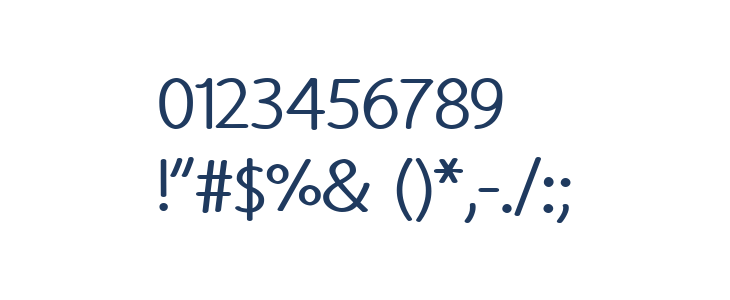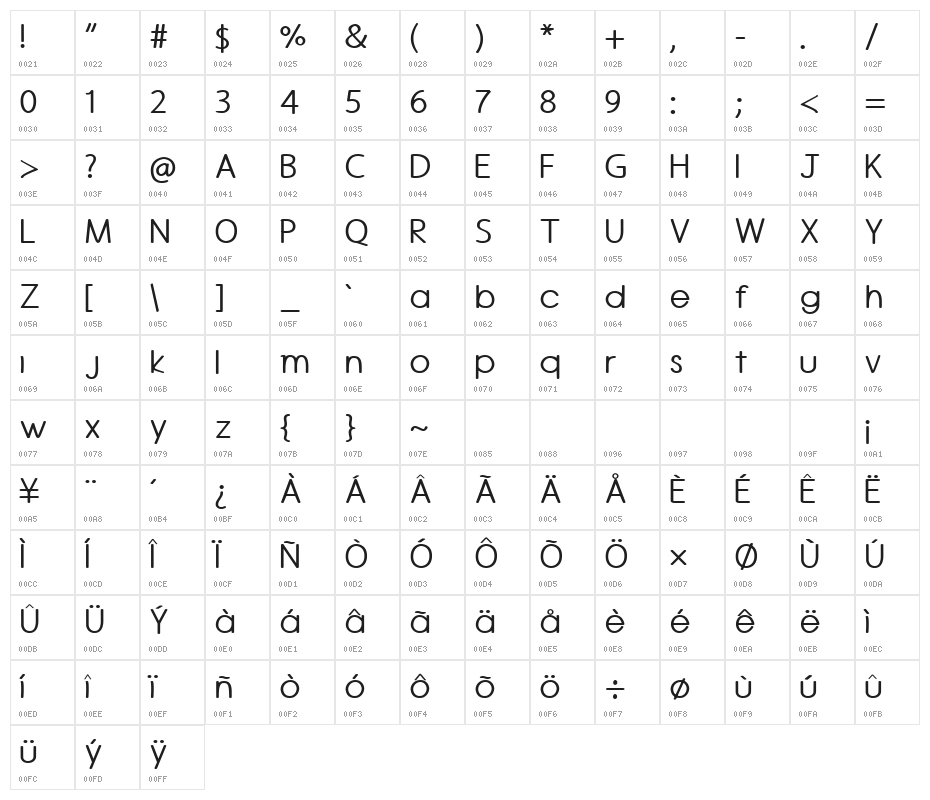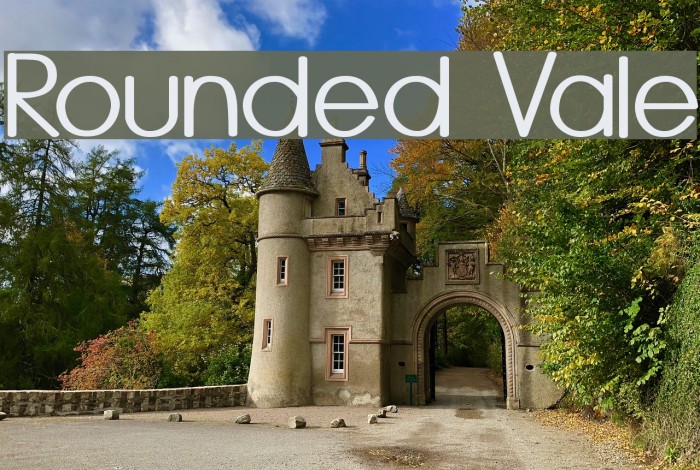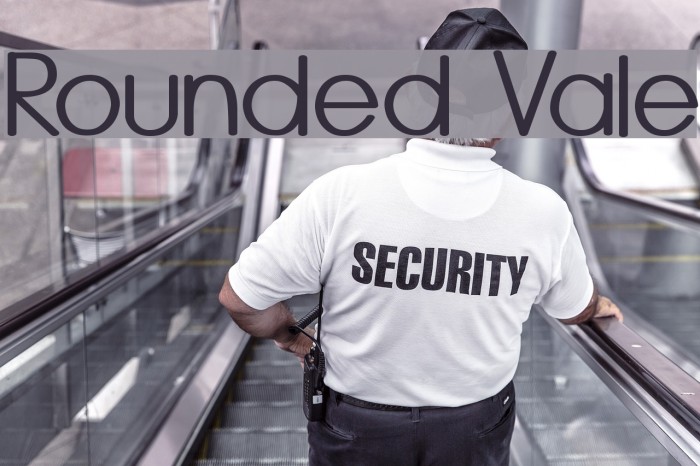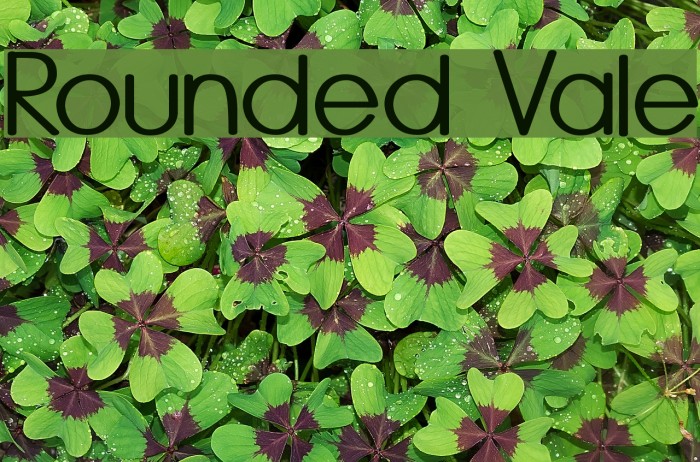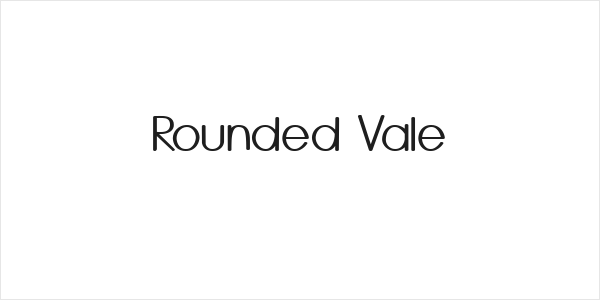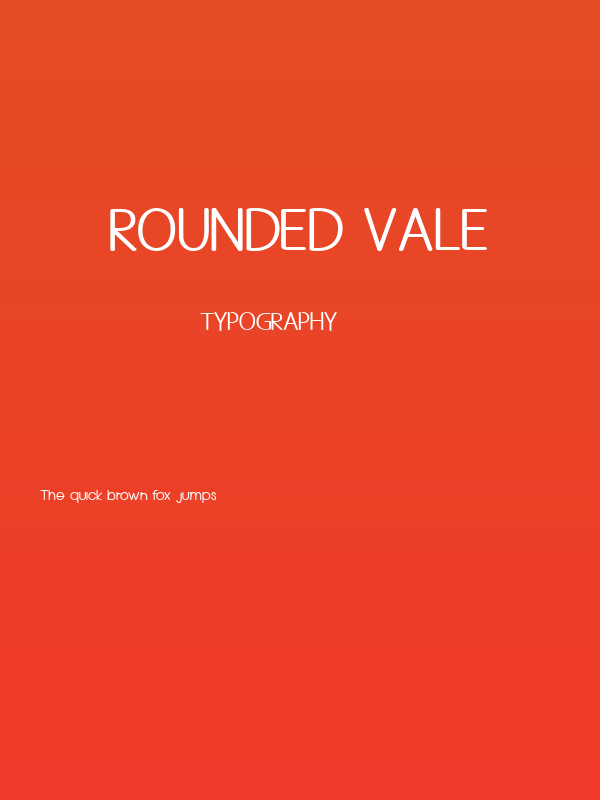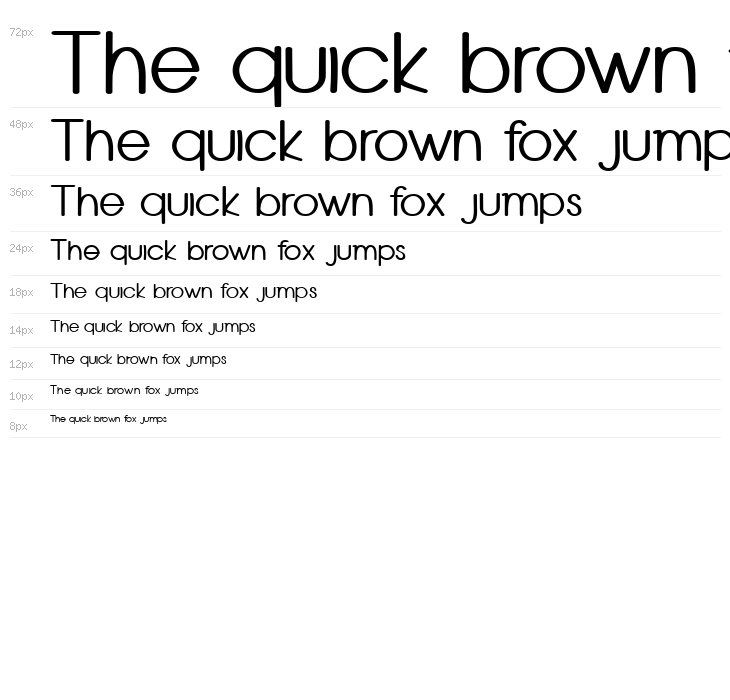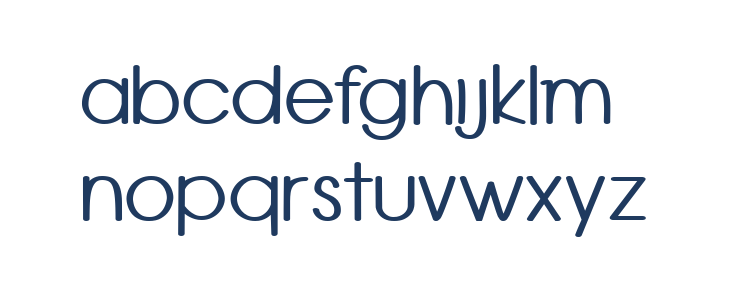
Rounded Vale Font
Rounded Vale Description
This font features a clean and modern aesthetic with rounded edges that give it a friendly and approachable feel. The characters are evenly spaced, contributing to its readability and versatility. The uppercase letters are slightly taller than the lowercase, maintaining a consistent line weight throughout. The numerals are clear and distinct, making them easy to read. Special characters are well-designed, fitting seamlessly with the overall style. This font's simplicity and elegance make it suitable for a wide range of applications, from digital interfaces to print media.
| Proposed Projects | Ideal for branding, web design, user interfaces, and print materials. |